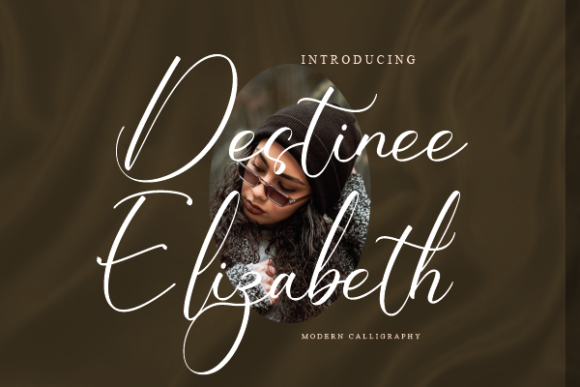
Journey into the realm of elegance and grace with Destinee Elizabeth, a cursive font that dances across the page with captivating flair. Each letter flows seamlessly into the next, exuding a timeless charm that will leave you breathless. Whether you're creating heartfelt holiday cards, enchanting invitations, or simply adding a touch of sophistication to your designs, Destinee Elizabeth is sure to captivate and inspire.
Step into a world of enchantment, where every word is a work of art. Destinee Elizabeth's intricate swashes and delicate curves add a touch of magic to your creations, transforming ordinary text into captivating expressions of artistry. Let your imagination soar as you witness the beauty of this font unfold before your eyes.
With Destinee Elizabeth, you'll discover a font that's as versatile as it is beautiful. Its elegant lines lend themselves effortlessly to a wide array of projects, from wedding invitations and branding materials to social media graphics and website designs. Whether you're a seasoned designer or just starting out, Destinee Elizabeth will elevate your work to new heights of sophistication.
Indulge in the timeless allure of Destinee Elizabeth, a font that evokes a sense of wonder and nostalgia. Its classic style has stood the test of time, ensuring that your designs will remain relevant and captivating for years to come. Embrace the enduring beauty of this font and let it add a touch of enchantment to your creative endeavors.